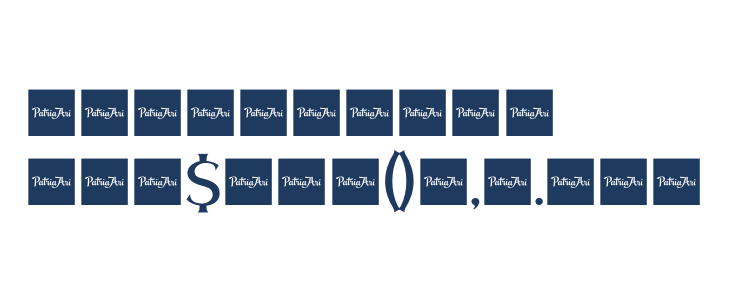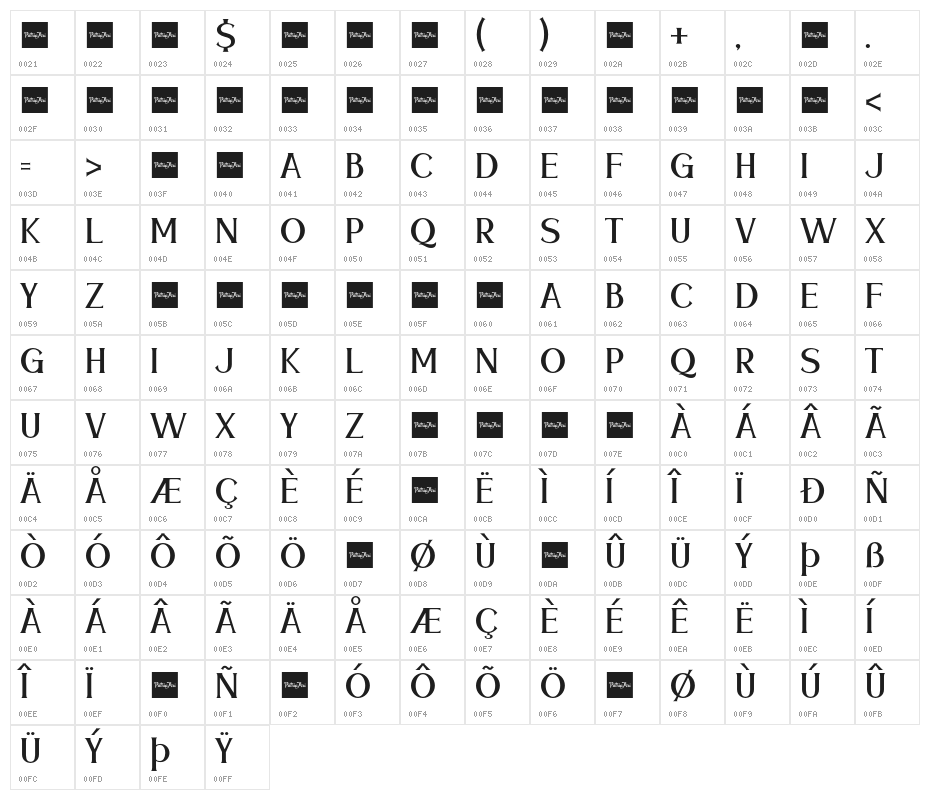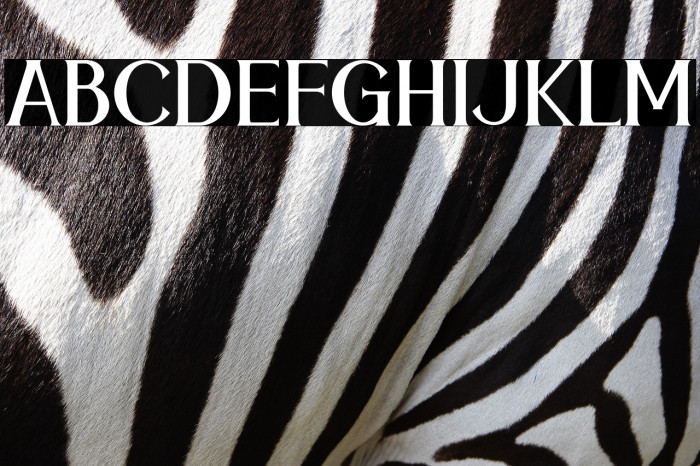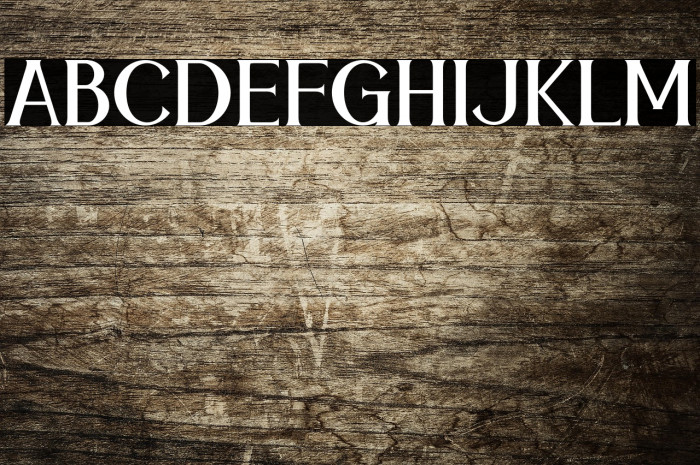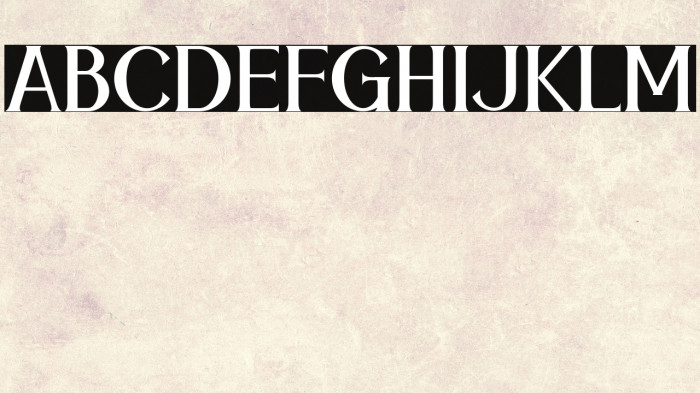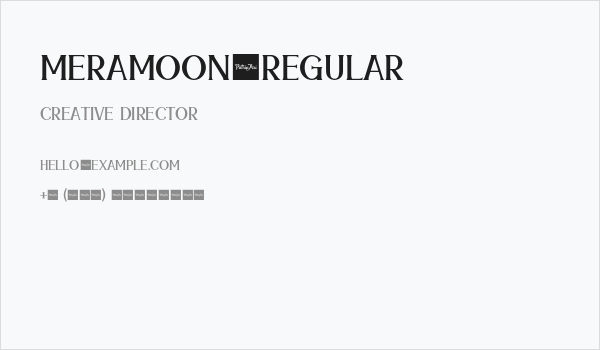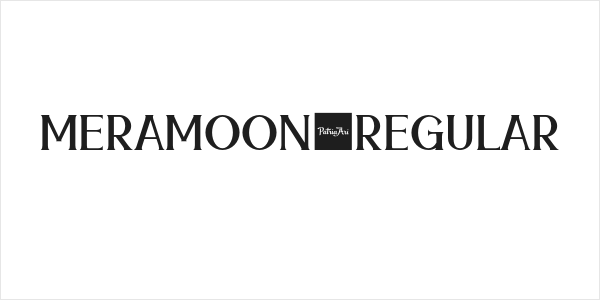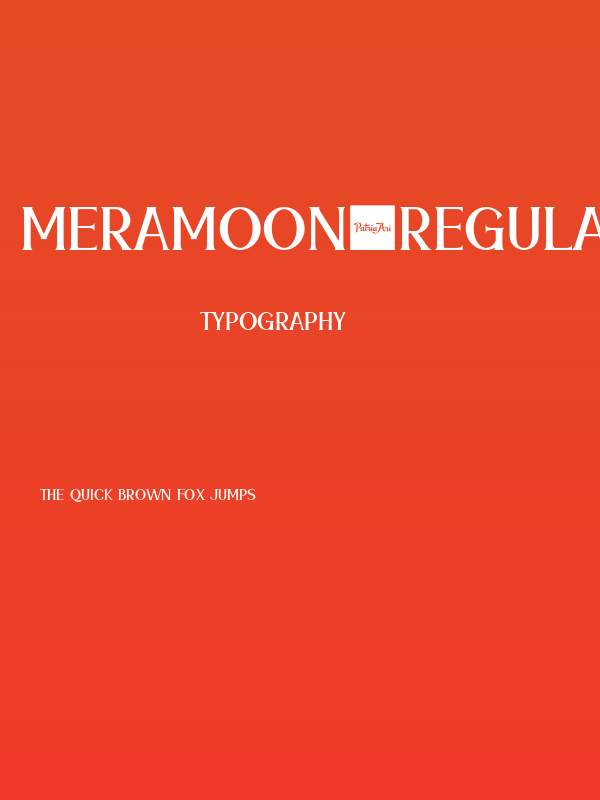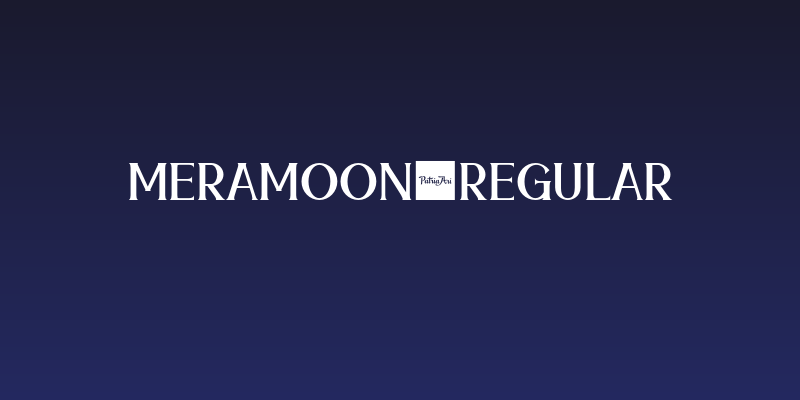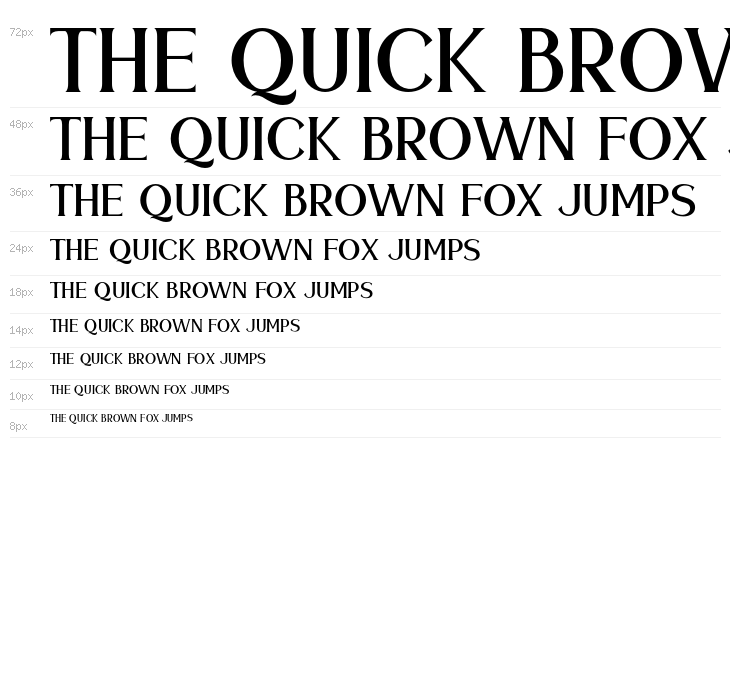
Meramoon-Regular Font
✎ Serif
Meramoon-Regular Description
This font features a classic serif style with elegant and refined strokes. The uppercase letters exhibit a traditional form with slight flaring at the ends, giving a sophisticated and timeless appearance. The lowercase letters maintain a consistent style, complementing the uppercase with smooth curves and balanced proportions. The numerals are clear and legible, adhering to the overall classic aesthetic. Special characters are designed with the same attention to detail, ensuring uniformity across all glyphs. This font is suitable for projects that require a touch of elegance and tradition.
| Categories | Serif |
| Overall Style | Classic |
| Use Case | Headlines, Body text, Logos |
| Proposed Projects | Ideal for book covers, formal invitations, branding, and editorial design. |